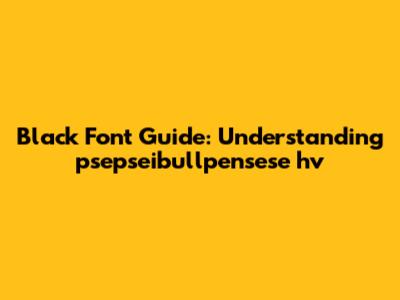
- Readability: First and foremost, make sure the font is legible, especially if you're using it for body text. Some black fonts can be too thick or stylized, making them difficult to read in large blocks of text. Test the font at different sizes and in different contexts to ensure it remains readable.
- Purpose: Consider the purpose of your design. Are you creating a logo, a website, a brochure, or something else? The ideal font for a logo might not be the best choice for a website, and vice versa. Think about the overall tone and message you want to convey and choose a font that aligns with that vision.
- Compatibility: Ensure that the font is compatible with the platforms and devices you'll be using. Some fonts may not display correctly on certain browsers or operating systems. It's always a good idea to test your design on different devices to ensure consistency.
- Pairing: Think about how the black font will pair with other fonts in your design. Choose fonts that complement each other and create a harmonious visual balance. A general rule of thumb is to avoid using too many different fonts in a single design, as this can create a cluttered and confusing look.
- Arial Black: A classic and widely used sans-serif font that is known for its clean and modern look.
- Impact: A bold and attention-grabbing sans-serif font that is perfect for headlines and titles.
- Bebas Neue: A sleek and modern sans-serif font that is popular for its tall and narrow proportions.
- Roboto Black: A versatile and readable sans-serif font that is suitable for both headlines and body text.
- Montserrat Black: A geometric sans-serif font that is known for its clean and contemporary aesthetic.
- Logos: Many companies use black fonts in their logos to create a strong and memorable brand identity. Think of brands like Chanel, Nike, and Adidas – their logos are instantly recognizable, thanks in part to their use of black fonts.
- Headlines: Black fonts are commonly used in headlines to grab the reader's attention and highlight the most important information. Newspapers, magazines, and websites all utilize black fonts in their headlines to make a statement.
- Posters: Black fonts are a popular choice for posters because they are highly visible and can be easily read from a distance. Movie posters, concert posters, and advertising posters often feature bold black fonts to attract attention.
- Websites: Black fonts are used on websites for a variety of purposes, including headings, navigation menus, and body text. A well-chosen black font can enhance the overall user experience and make the website more visually appealing.
Alright, guys, let's dive into the world of fonts, specifically focusing on the mysterious term “psepseibullpensese hv” and its connection to black fonts. I know, it sounds like something out of a sci-fi movie, but bear with me! We're going to break it down, make it understandable, and even a little bit fun.
Demystifying "psepseibullpensese hv"
Okay, first things first: “psepseibullpensese hv” isn’t exactly a standard term you’ll find in the typography textbooks. It seems more like a placeholder or a random string of characters. Perhaps it's a typo, a code name from a specific project, or even a nonsensical input used during a font-related task. Whatever the origin, it highlights an important aspect of dealing with fonts – specificity and clarity are key. When you’re talking about fonts, whether it’s for a website, a document, or a design project, using precise terms and names ensures everyone is on the same page.
Imagine you're working on a project that requires a specific type of black font. Instead of vaguely describing it, you would want to use the actual font name (like Arial Black, Impact, or Bebas Neue) to avoid any confusion. This is crucial for maintaining consistency and achieving the desired look and feel. So, while “psepseibullpensese hv” might not lead us anywhere concrete, it serves as a reminder to always be specific when discussing font characteristics.
In the context of design and typography, clear communication is paramount. Using accurate terminology ensures that designers, developers, and clients are all aligned on the visual elements of a project. This reduces the risk of errors, saves time, and ultimately leads to a better final product. Think of it like cooking: you wouldn’t just say “add some stuff” to a recipe; you’d specify the exact ingredients and quantities. The same principle applies to font selection and usage.
The Allure of Black Fonts
Now that we've addressed the mysterious phrase, let's shift our focus to the captivating world of black fonts. Black fonts, with their bold and impactful presence, have always been a favorite among designers and creatives. They command attention, exude confidence, and can instantly elevate the visual appeal of any project. But what makes them so special?
One of the primary reasons designers opt for black fonts is their readability. In many cases, especially for headlines and titles, a bold black font ensures that the text stands out and captures the viewer's attention immediately. This is particularly important in advertising, where you have only a few seconds to make an impression. Imagine a billboard with a thin, barely visible font versus one with a strong, black font – which one is more likely to grab your attention as you drive by?